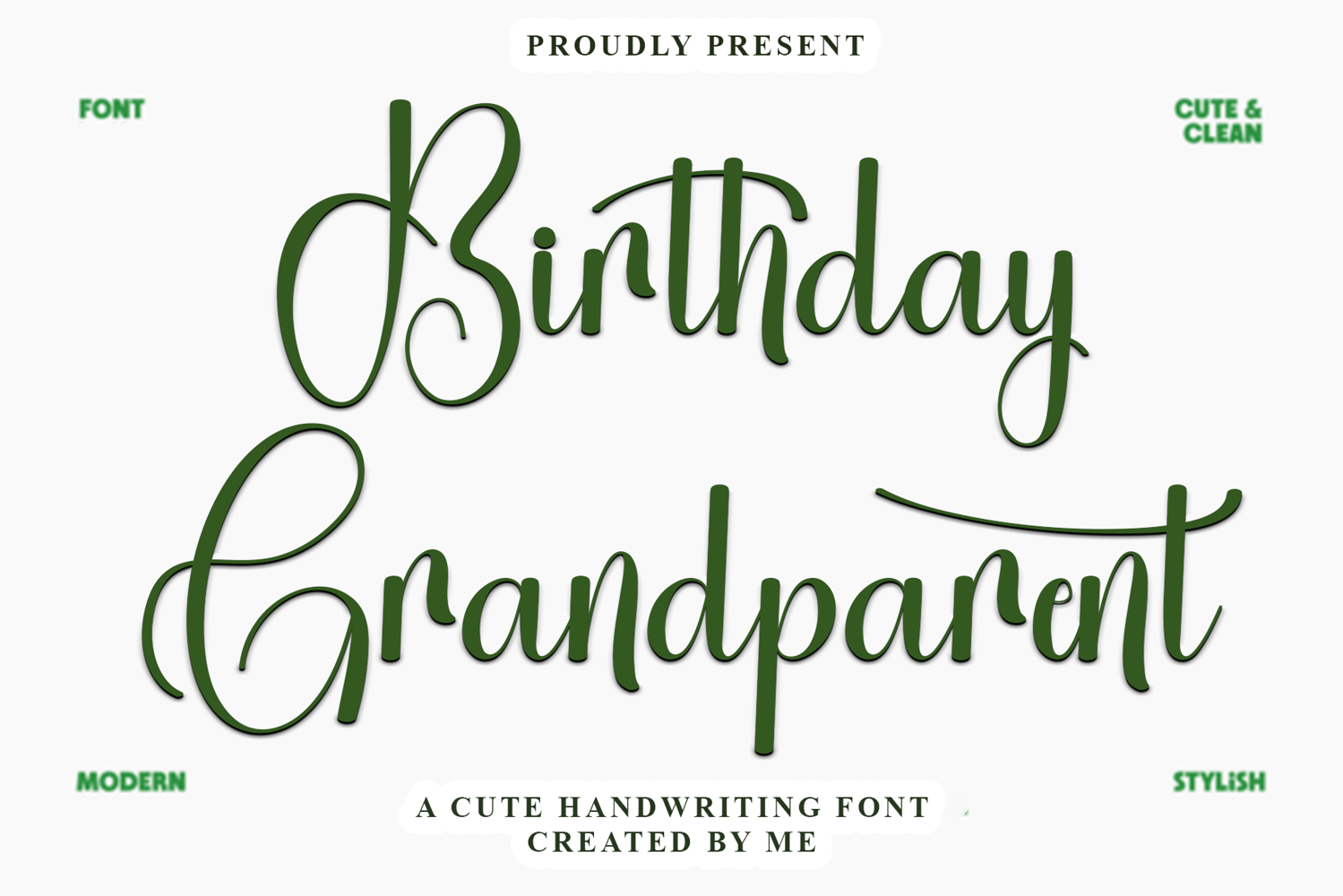
Birthday Grandparent
Birthday Grandparent is a beautiful and eye-catching font designed with a soft, unique touch. Its distinctive strokes give it a special character, making it meaningful and versatile for future use. With various characters, it’s perfect for design projects, crafts, and other creative works.